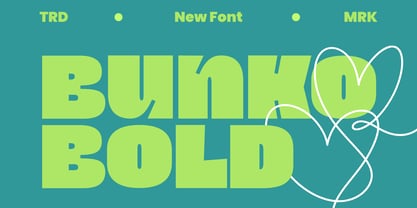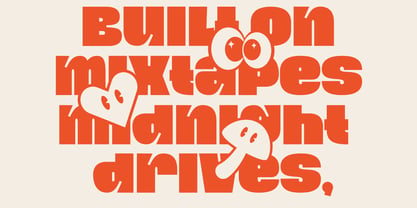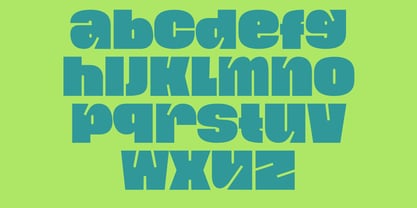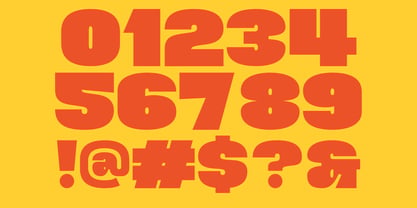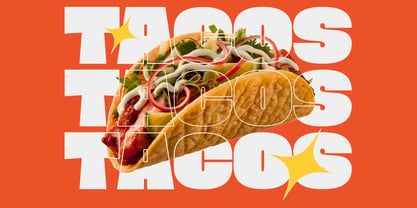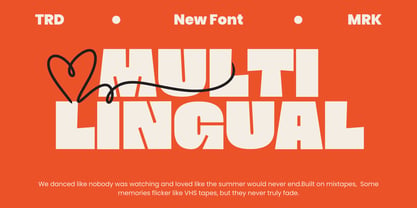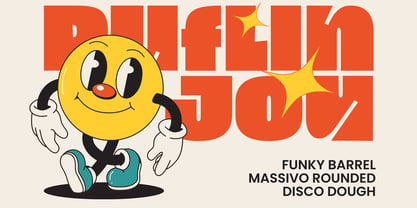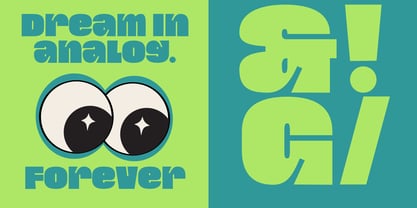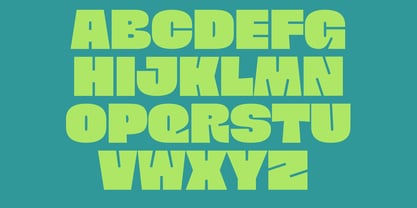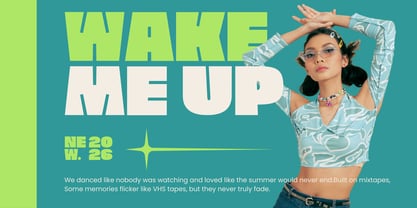
Bunko
by Maikohatta
The Bunko Font Family was designed by Gilang Ternadho and published by Maikohatta. Bunko contains 1 styles. More about this family
Introducing our new product Bunko – Rounded Bold Sans Serif Display Bunko is a Rounded Bold Sans Serif Display with a strong and playful character. Featuring thick strokes and smooth rounded edges, this font delivers a bold visual impact that makes any design stand out. Its heavy style and friendly shapes create a perfect balance between modern aesthetics and fun personality. Bunko is highly versatile and works perfectly for a wide range of creative projects such as logos, branding, posters, social media graphics, packaging, headlines, kids designs, street style visuals, and more. Whether you want to create eye-catching titles or energetic branding, this font will add a powerful and distinctive touch to your design. Designed to be both impactful and easy to read, Bunko Bold is an excellent choice for designers looking for a bold, modern, and playful typeface.
Designers: Gilang Ternadho
Foundry: Maikohatta